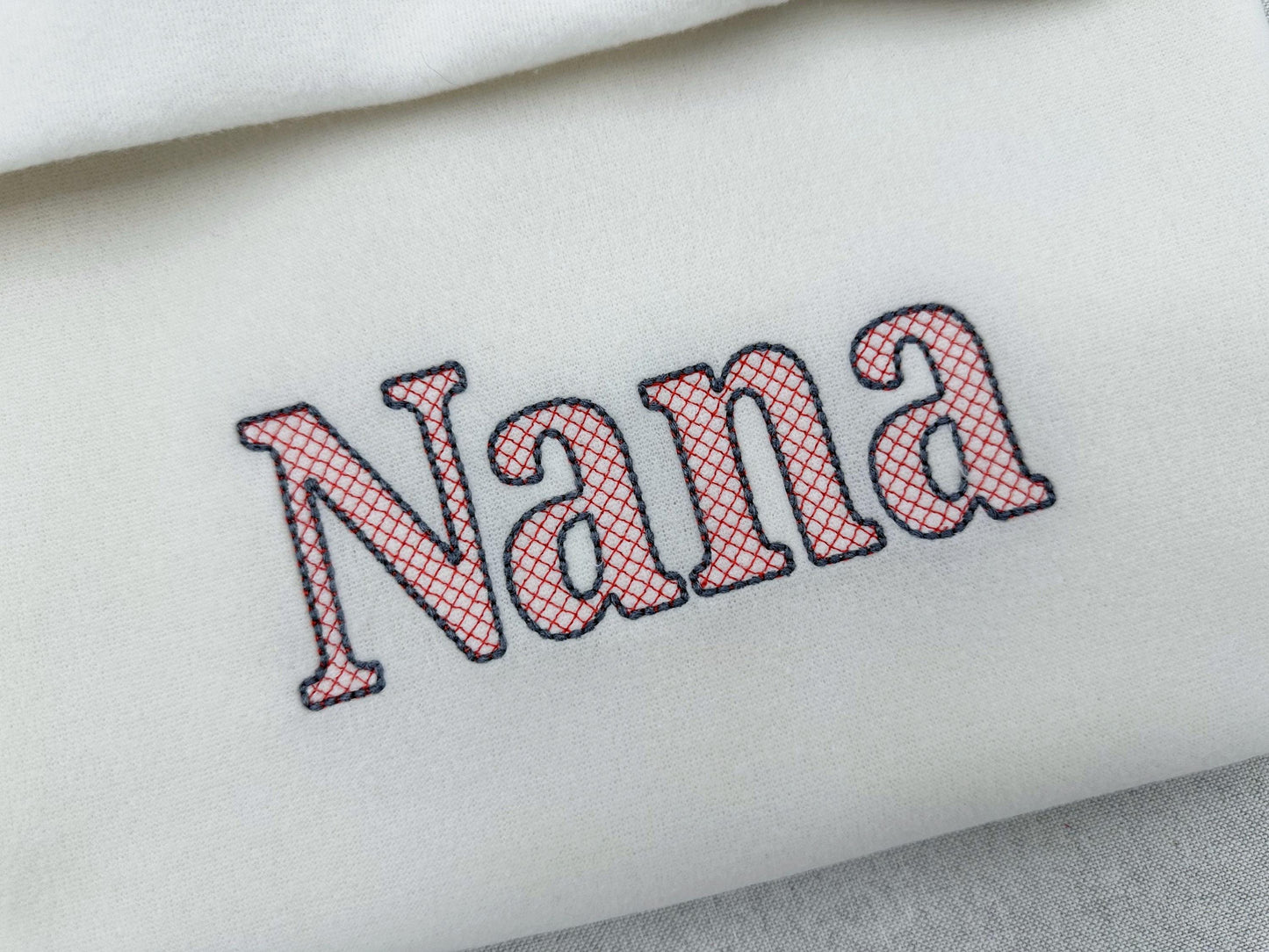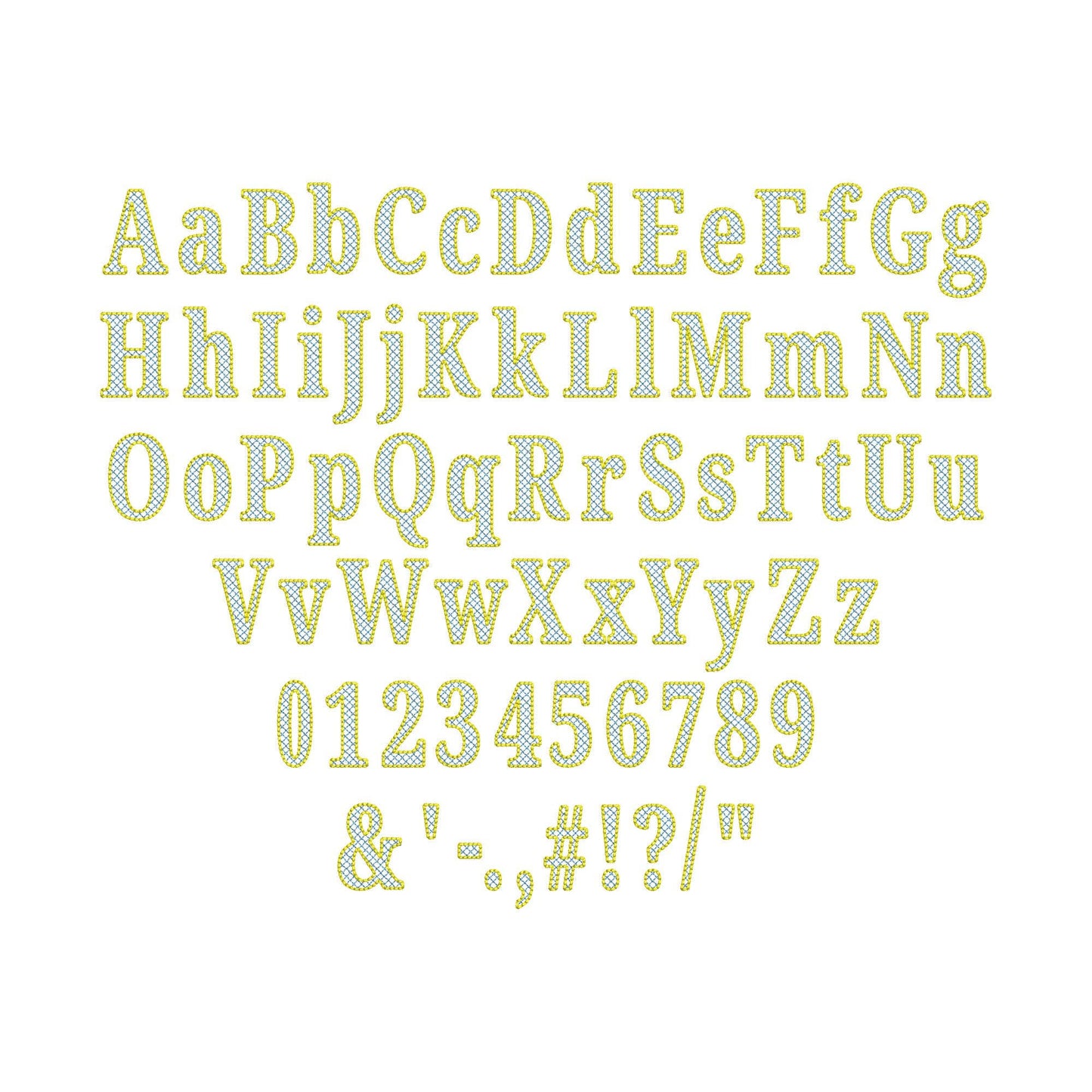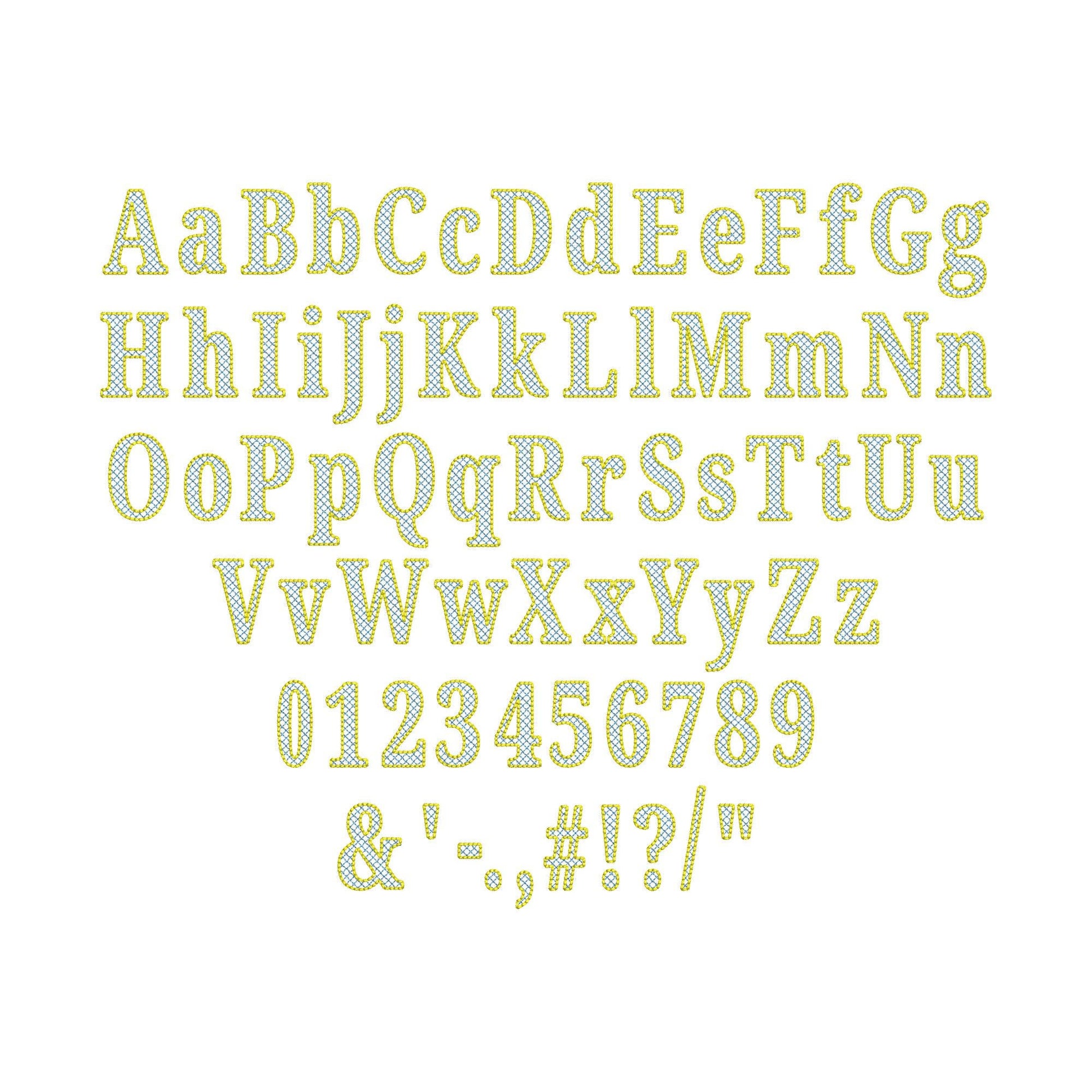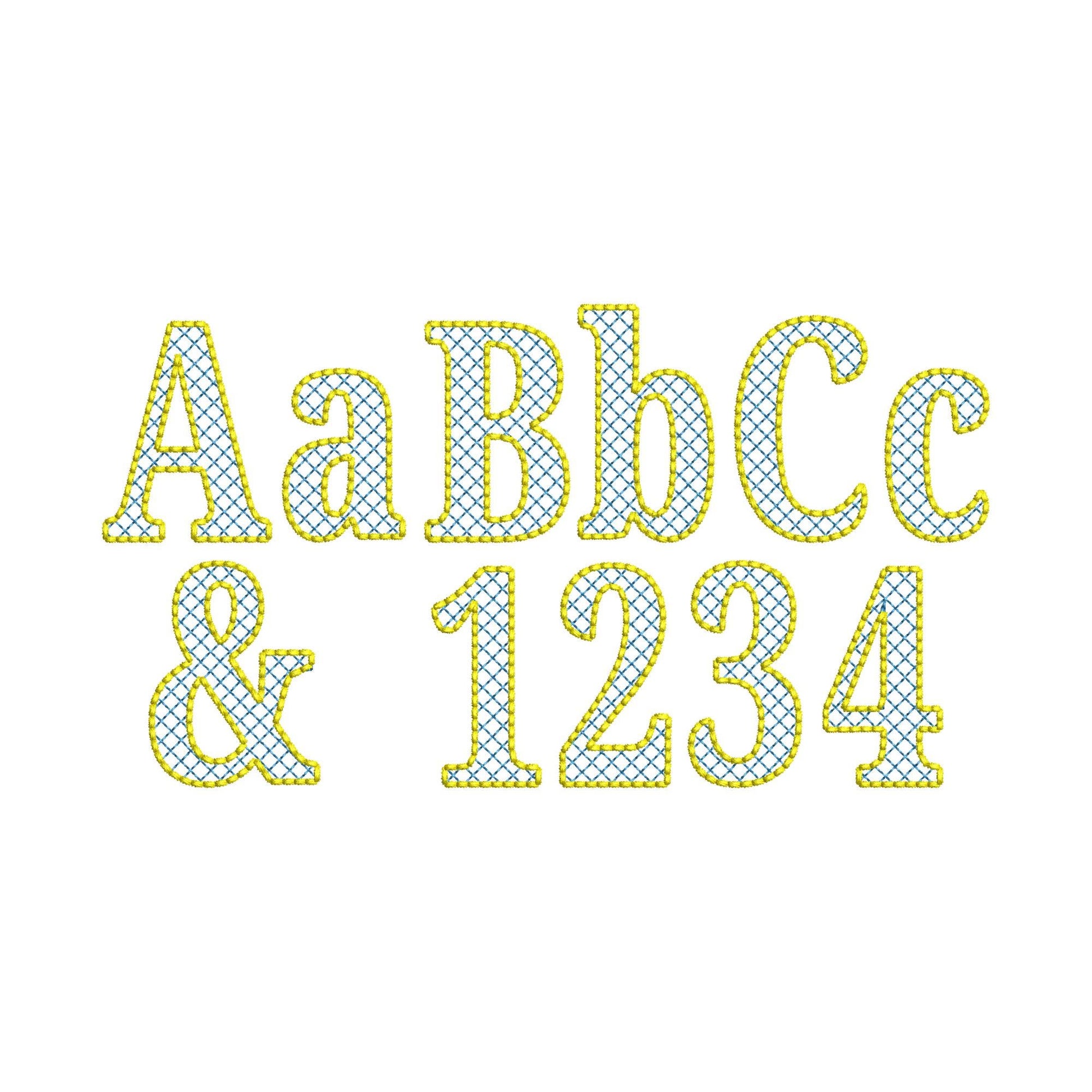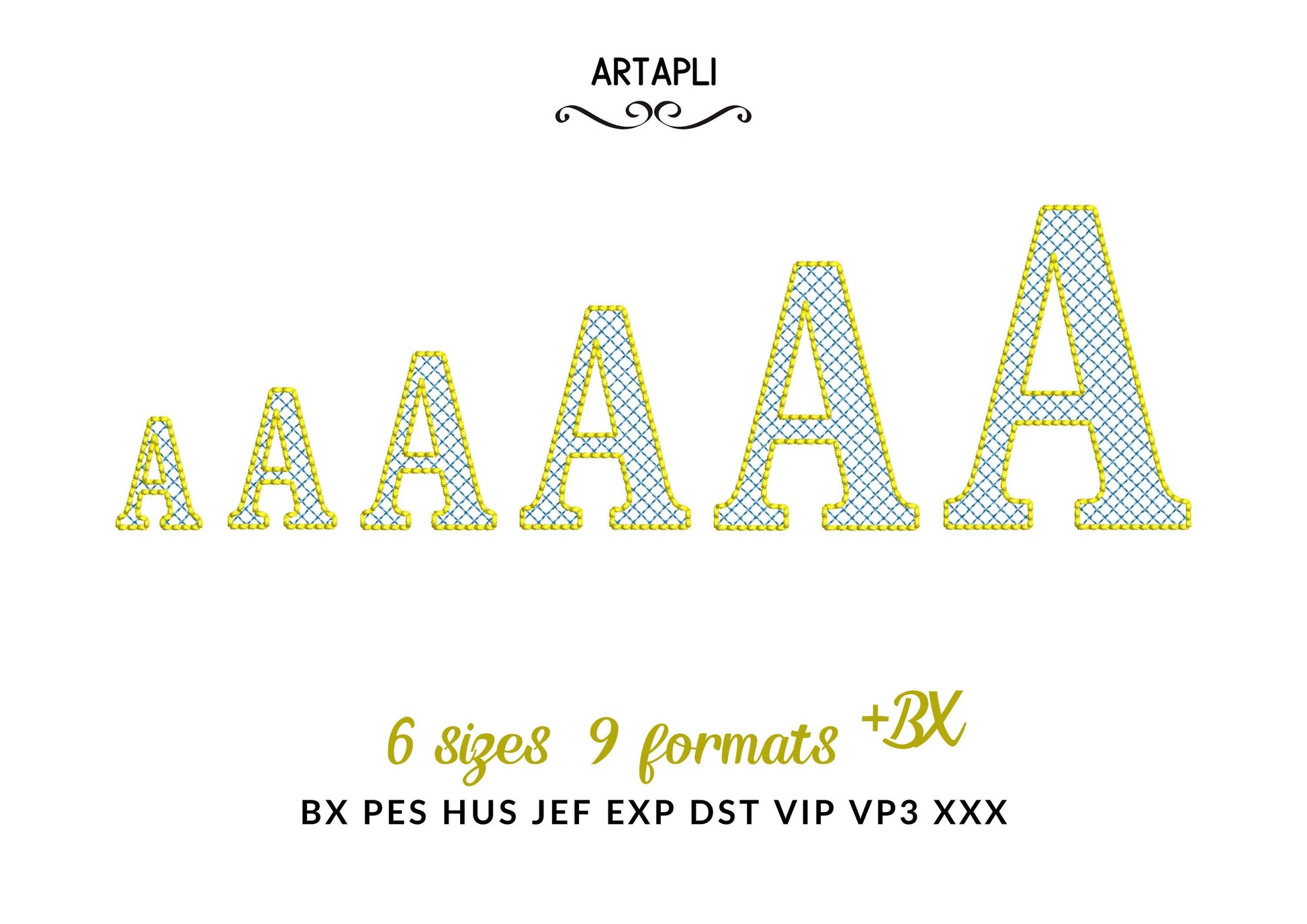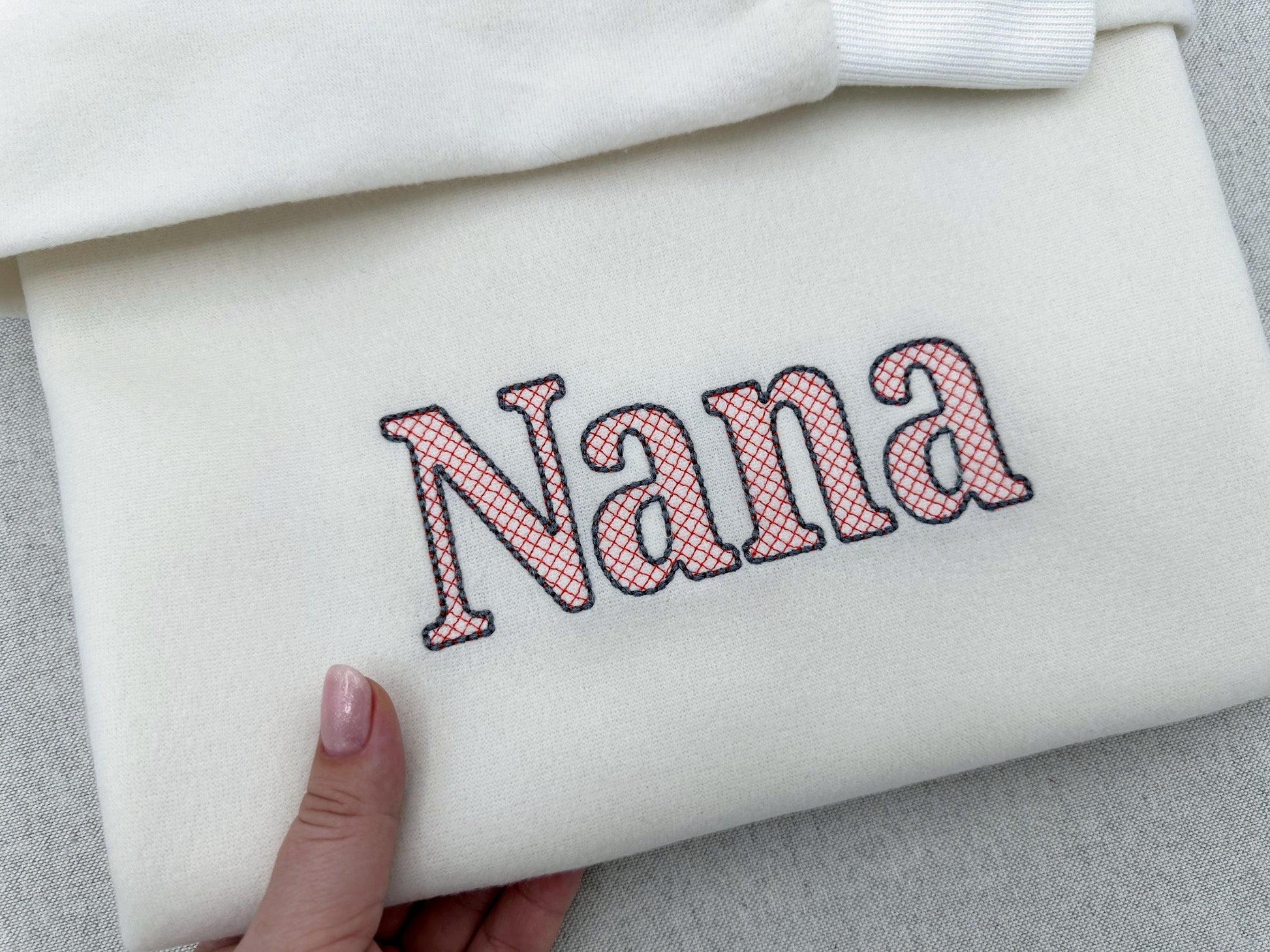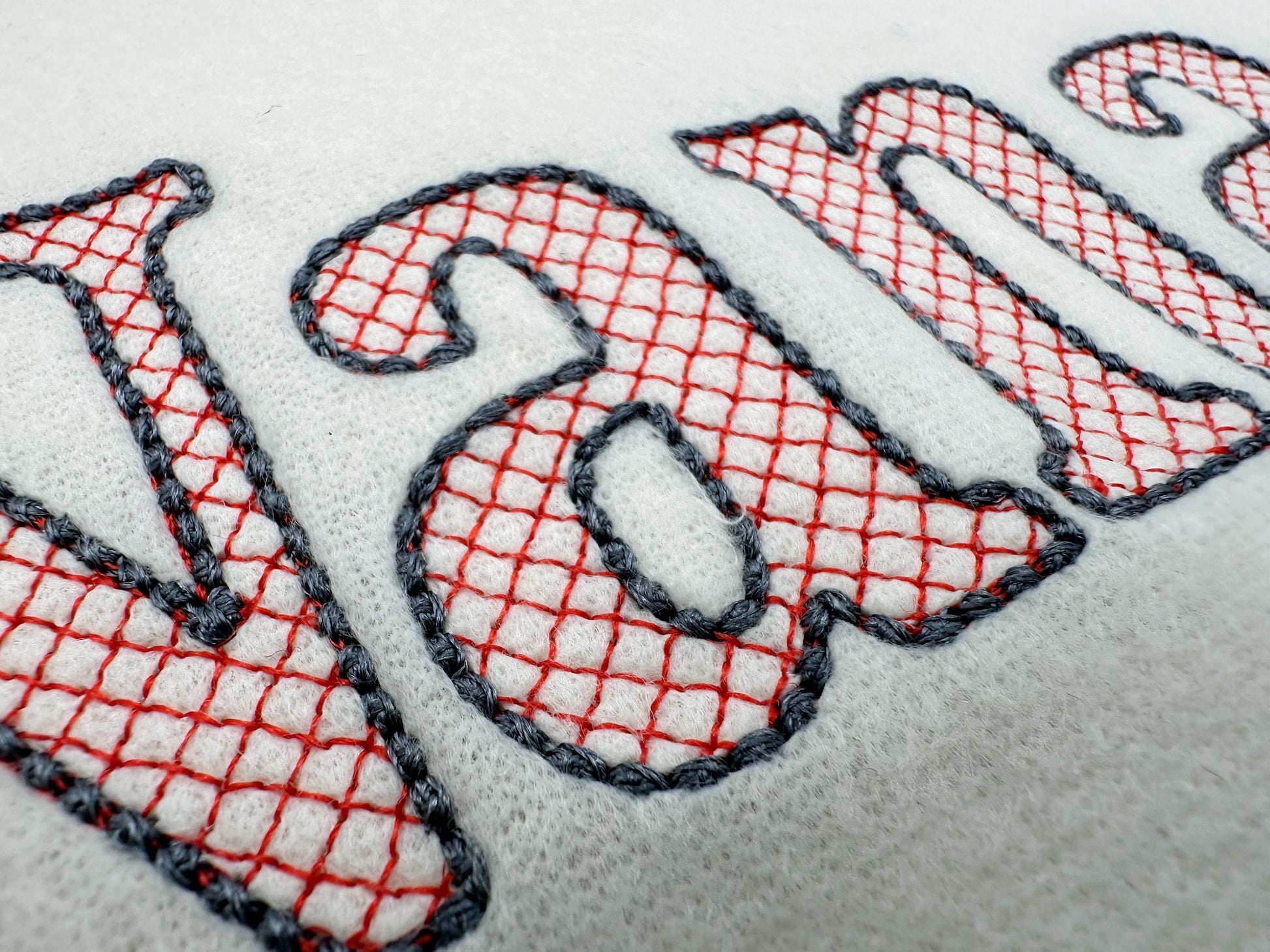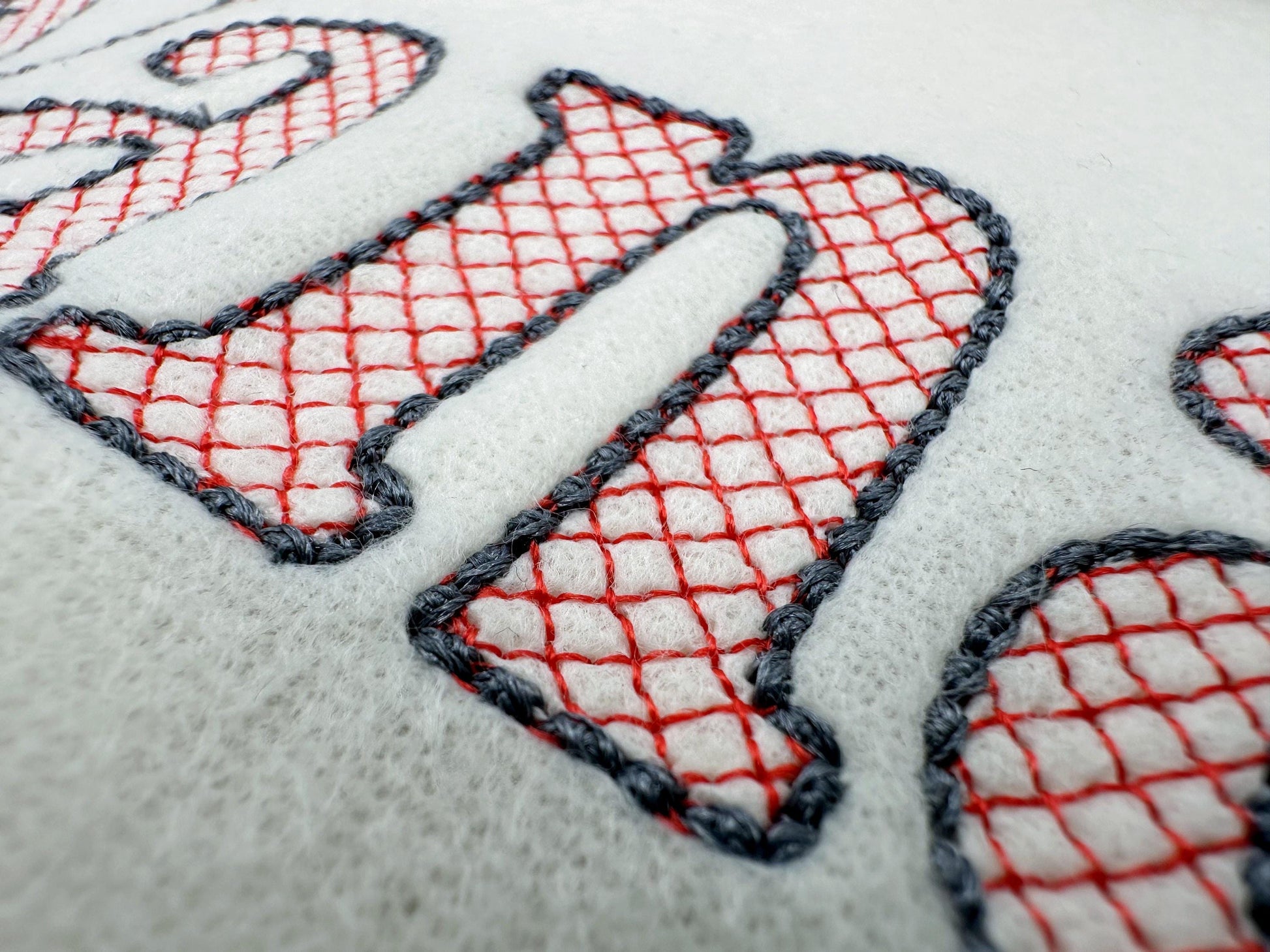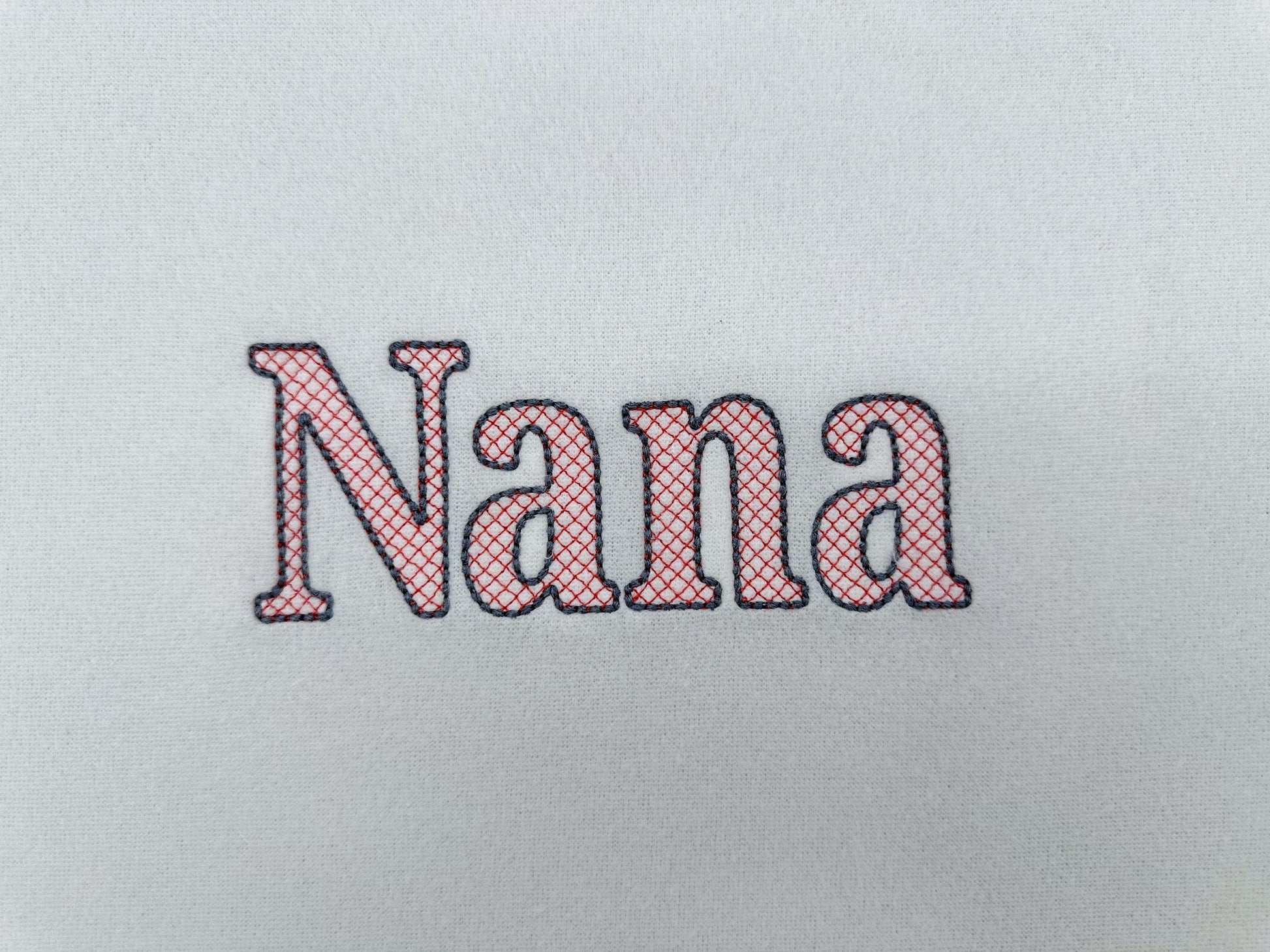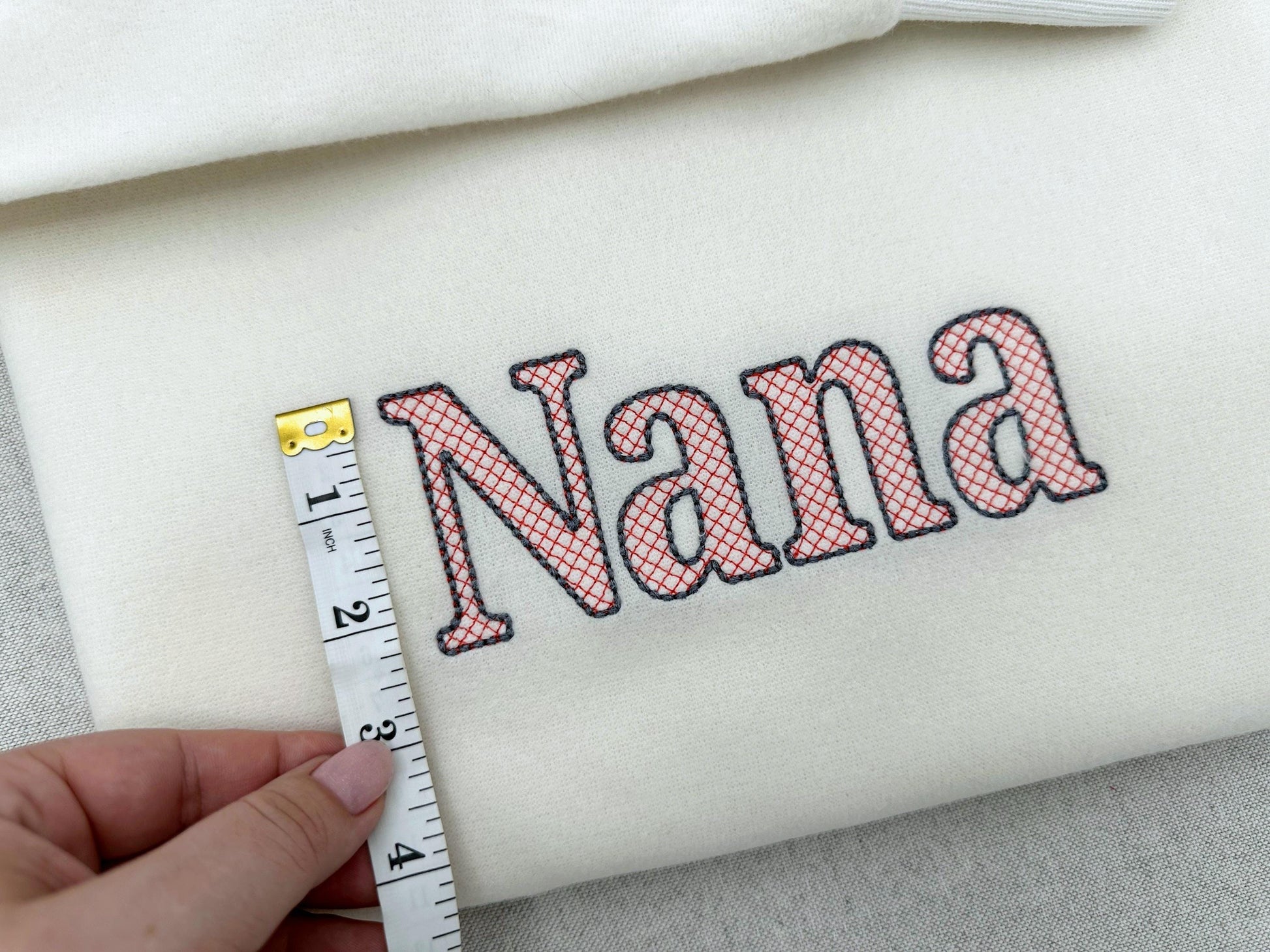
Diamond Patterned Font Nolan
Or click to open the linkEntire alphabet uppercase and lowercase letters Aa-Zz, numbers 0-9, and punctuation.
This is a transparent font, and the background fabric looks through. Stunning effect!